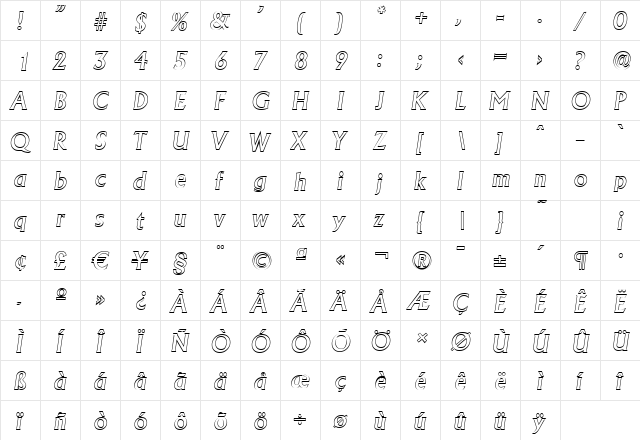
JacobBeckerOutline-Medium Italic
Design Context for JacobBeckerOutline-Medium Typeface
JacobBeckerOutline-Medium brings ornamental detail and strong personality to headlines and identities, where visual impact matters more than quiet functionality. Its italic angle brings a sense of urgency and motion to the letterforms.
Font Pairing: Pair with a clean neutral sans-serif for body copy to let JacobBeckerOutline-Medium's character lead without overwhelming the composition.
Pro Tip: Use JacobBeckerOutline-Medium exclusively at display sizes — it was designed to be seen, not read at length. Let a neutral companion handle body copy.